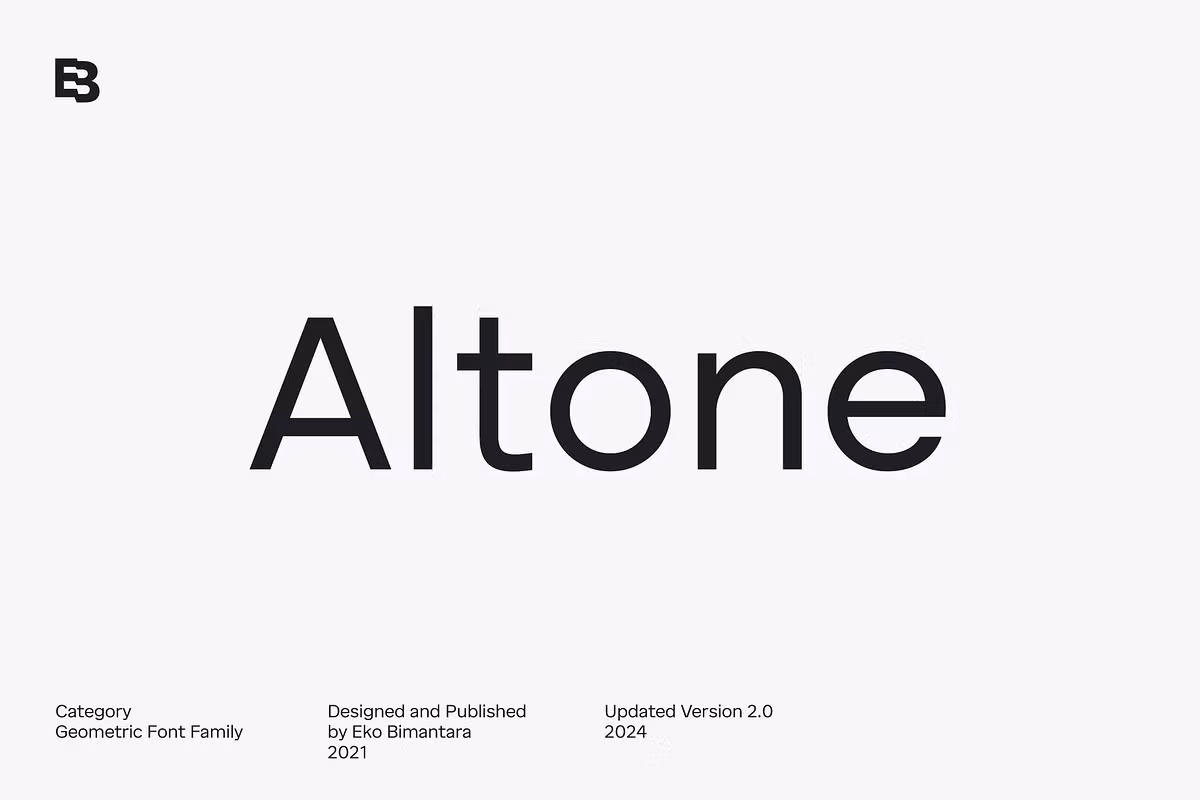
Altone Font Free Download is a modern geometric sans-serif font family featuring 18 versatile styles, ranging from Thin to Black with matching italics. Designed for clarity, precision, and functionality, Altone is perfect for branding, editorial layouts, websites, mobile apps, UI/UX design, and professional presentations.
With clean lines and a structured design, Altone Font Free Download delivers excellent legibility across all platforms. Its geometric form brings a sleek, contemporary feel, while its wide range of weights offers flexibility for building consistent visual hierarchies.
Whether you're creating digital interfaces or print materials, Altone adapts beautifully to every application. It pairs well with serif fonts or scripts to create modern, minimal, and balanced typography.